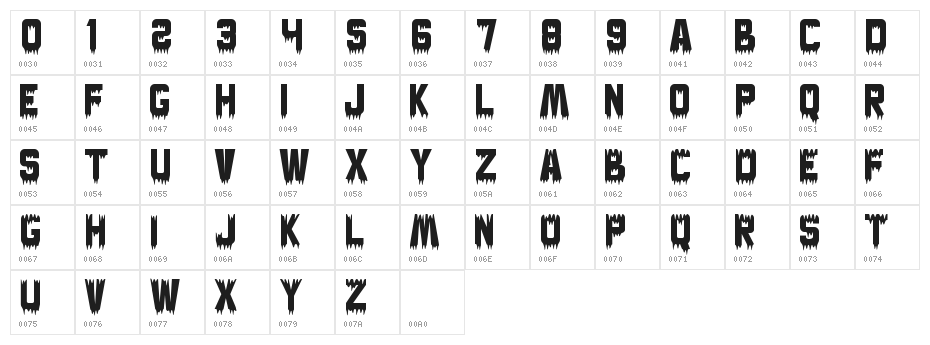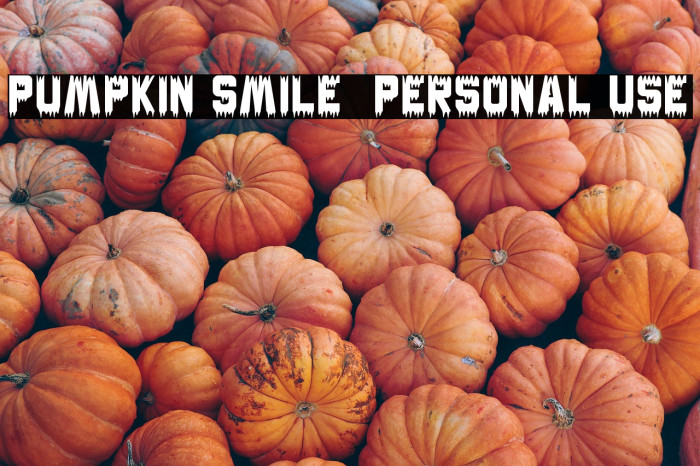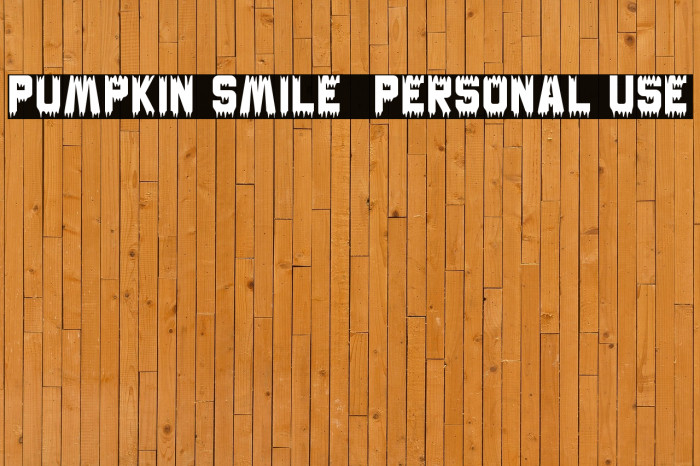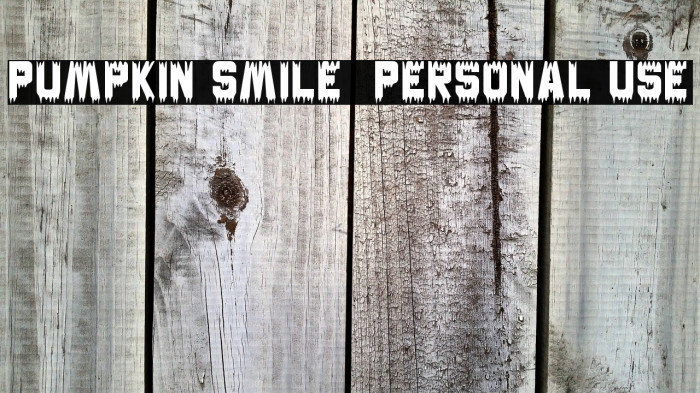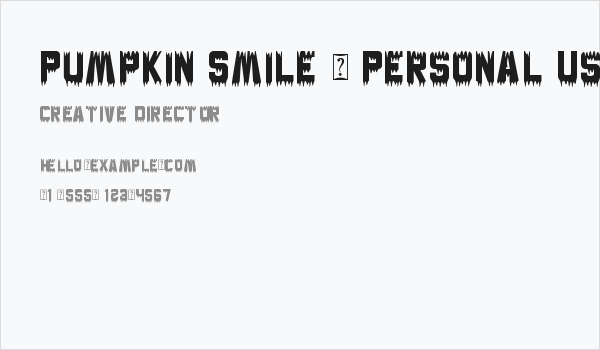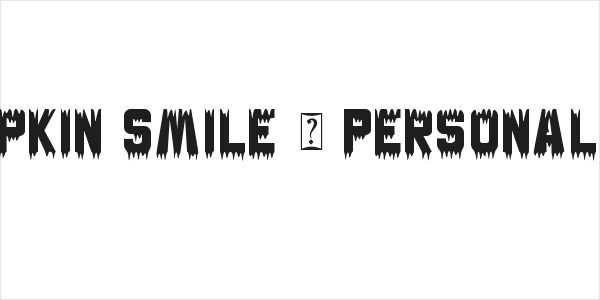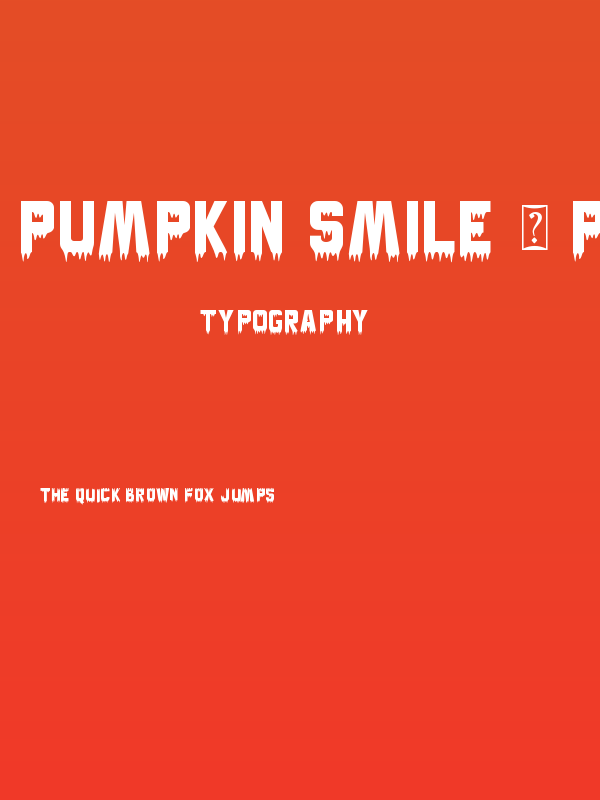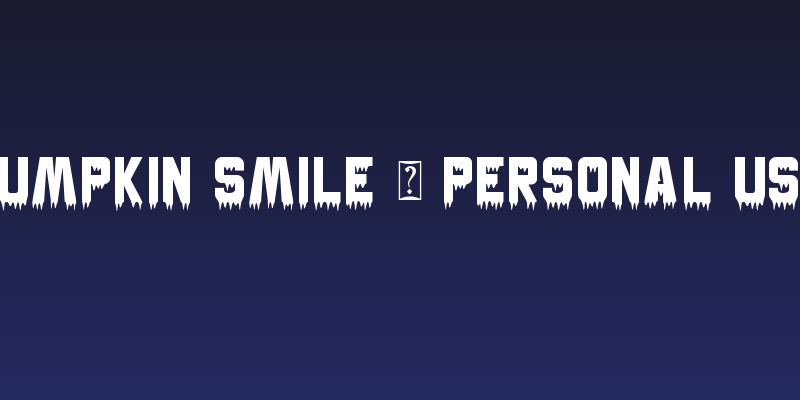
Pumpkin Smile - Personal Use Font
This font features a playful and spooky design, reminiscent of dripping paint or melting wax, which gives it a Halloween-inspired aesthetic. The characters are bold and have a distinct, jagged edge at the bottom, creating a sense of movement and fluidity. The uppercase and lowercase letters maintain a consistent style, with the numbers and special characters following suit. This font is ideal for themed events, posters, or any design that requires a touch of whimsy and eeriness.
| Proposed Projects | Ideal for Halloween invitations, spooky event posters, themed party decorations, and creative social media graphics. |